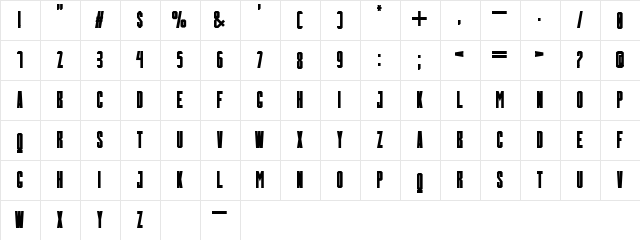
BOULEVARD Regular
| Designer | Lettersiro 2018 |
Design Context for BOULEVARD Typeface
BOULEVARD offers clean, dependable letterforms without strong stylistic allegiance, making it a practical choice for designers who need flexibility.